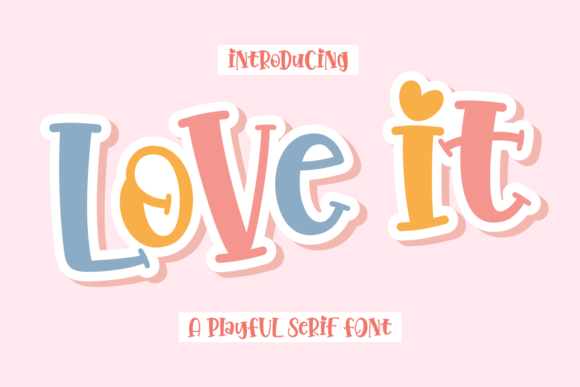
Looking for a cute and charming font that adds a lovely touch to your design? Look no further than Love It Font! Created by Dani from 7NTypes, this display font is perfect for cartoon-related designs, children's games, and any other creative project that requires a touch of sweetness.
Love It Font is more than just a font – it's a way to add a warm and friendly feeling to your designs. With its playful yet elegant style, Love It Font is perfect for greeting cards, invitations, social media posts, and more. Imagine using it to create personalized gift tags and ribbons for your loved ones – it's sure to put a smile on their faces!
But don't just take our word for it – Love It Font is a customer favorite! Users love the way it adds personality and character to their designs. And with its easy-to-read letters and stylish curves, Love It Font is as functional as it is beautiful.